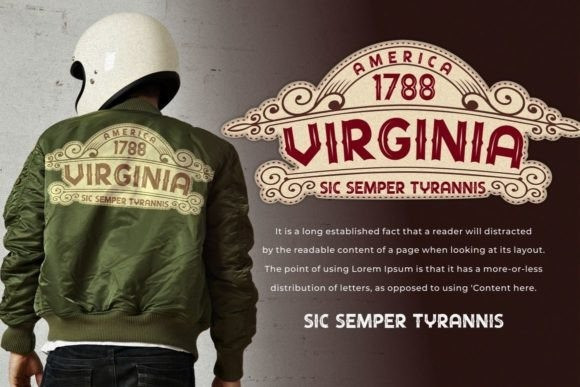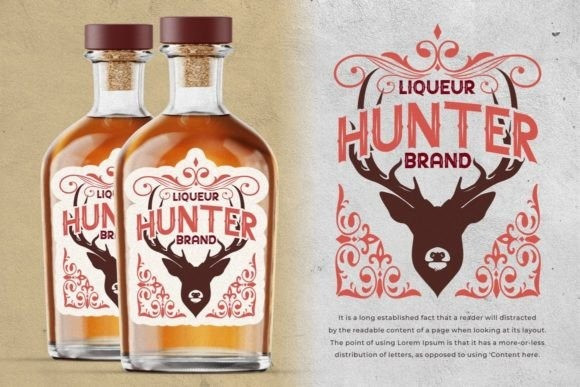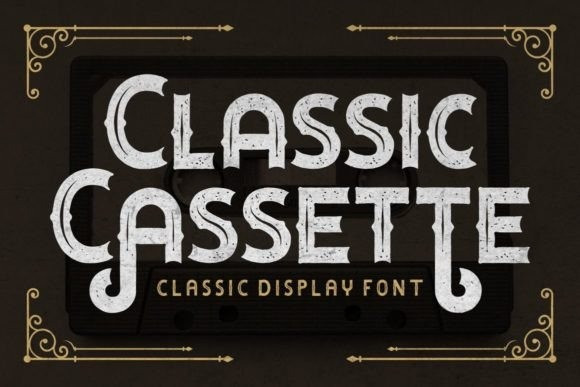
Classic Cassette Font
Classic Cassette Display Font is a cool vintage-style display font. Masterfully designed to become a true favorite, this font has the potential to bring each of your creative ideas to the highest level! Classic Cassette is PUA encoded which means you can access all the glyphs and ligatures with ease!